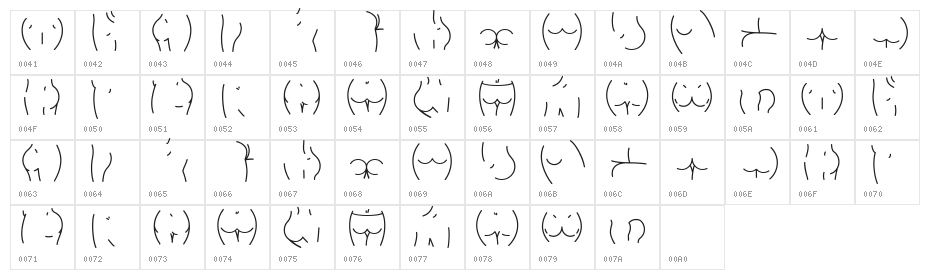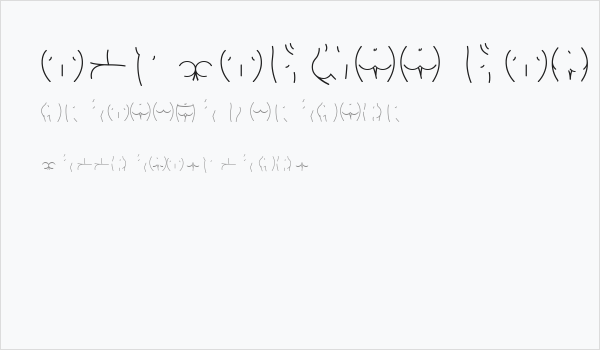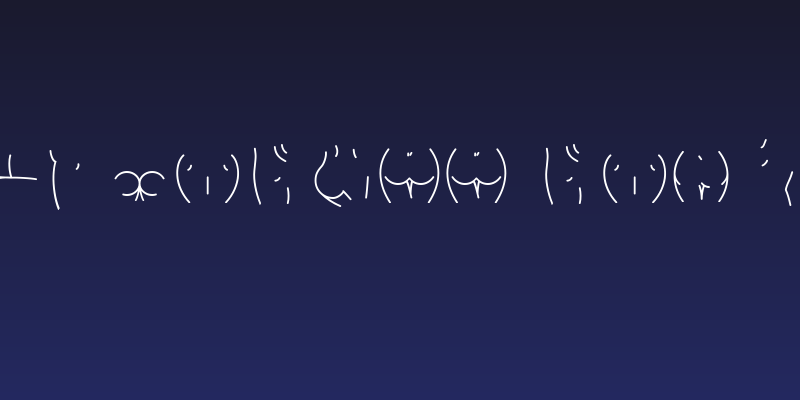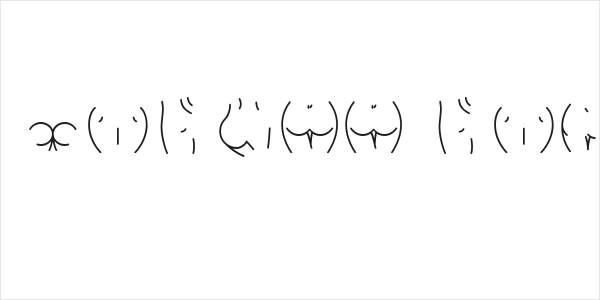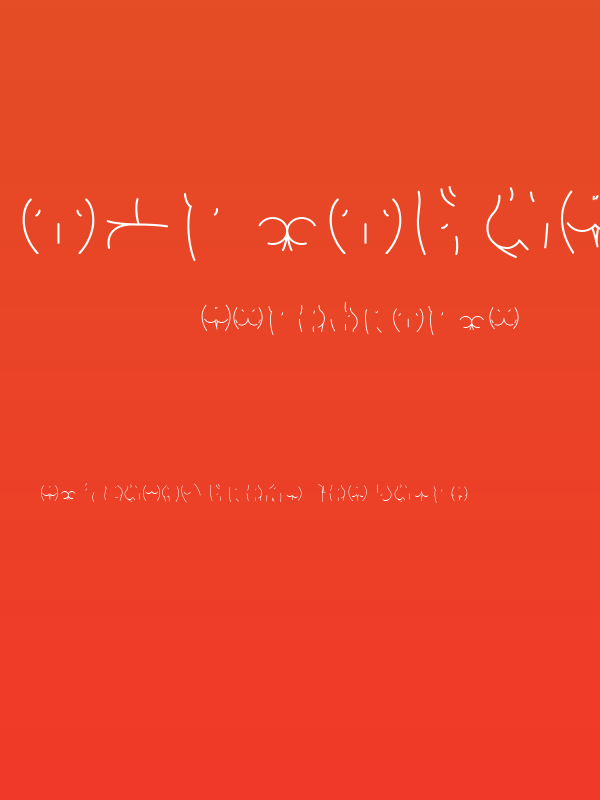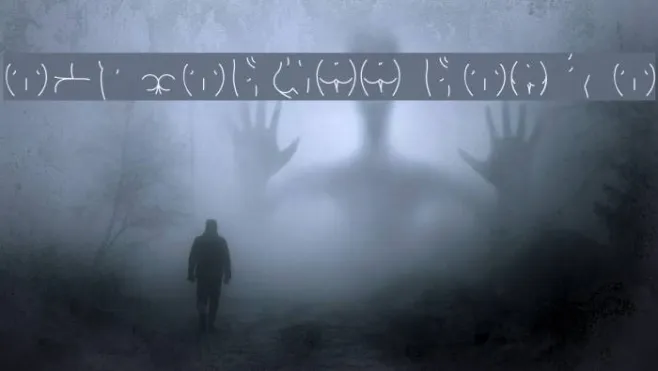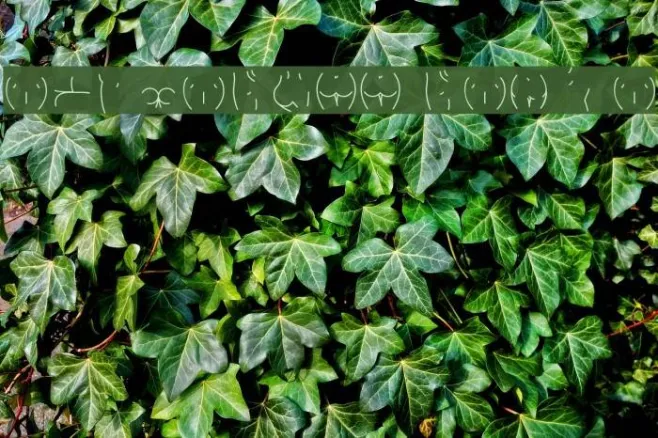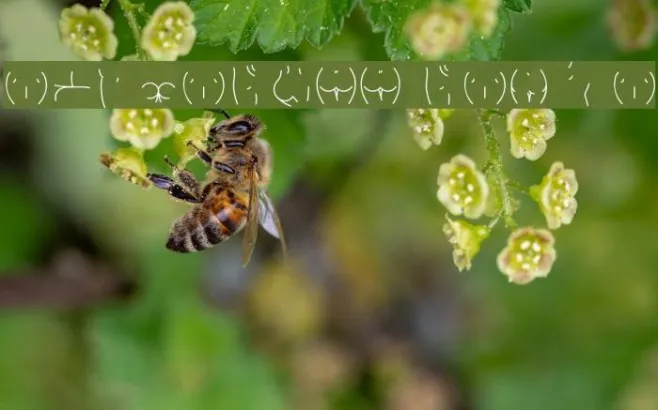
Alphabutt Base A Font
Alphabutt Base A Description
This font features a playful and humorous design, where each character is creatively represented using a combination of parentheses, commas, and other punctuation marks to resemble a whimsical depiction of human anatomy. The style is unique and unconventional, focusing on visual humor and creativity. Each letter and number is crafted with a sense of fun, making it stand out as a decorative and novelty typeface. The characters are consistent in their playful theme, offering a cohesive look across the entire set.
| Overall Style | Humorous, Novelty |
| Use Case | Logos, Posters, Greeting Cards |
| Proposed Projects | Ideal for humorous greeting cards, novelty posters, playful branding, and any project that seeks to incorporate a lighthearted and fun element. |